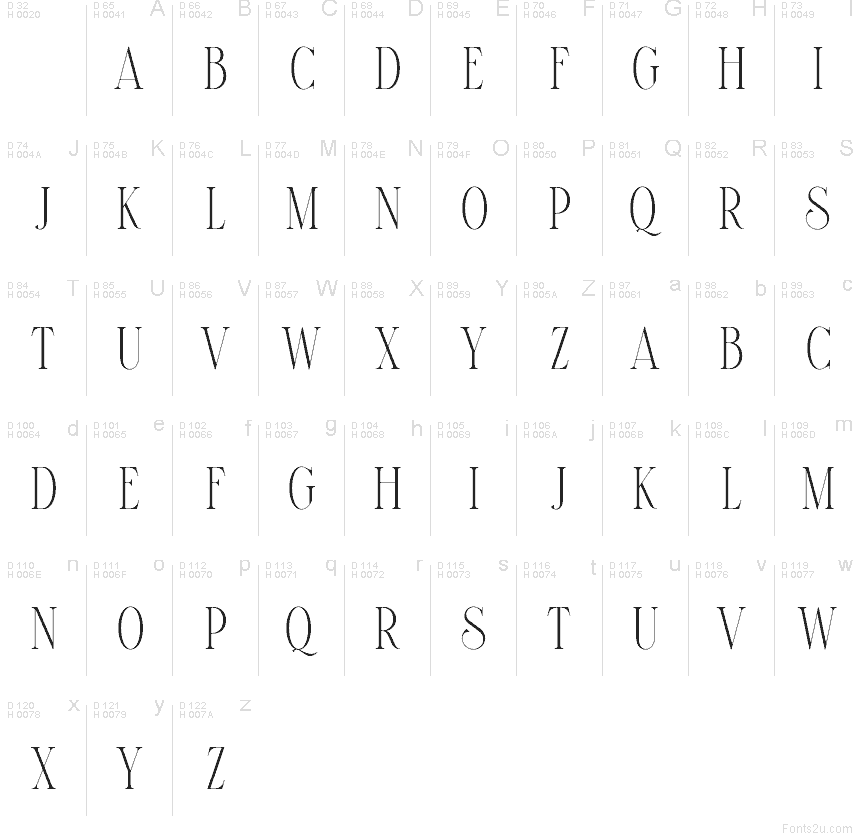
Elantrae Demo Regular
Elantrae font by VPcreativeshop is a free serif typeface with a razor-fine, elongated elegance that feels straight off a couture runway. Ultra-slim vertical strokes, sweeping curves, and sharp, needle-like serifs create a refined tension between fragility and drama. Letters stand tall and airy, giving headlines a graceful, editorial presence while still reading clean and crisp at a glance.
Using Elantrae, you get a natural fit for fashion branding, perfume boxes, magazine covers, posters, boutique logos, and luxurious social media graphics. This free font shines when set large, where its sculpted shapes and generous vertical rhythm can really breathe. Pair Elantrae with a simple, neutral sans serif for body text to let its poised, stylish character stay in the spotlight.